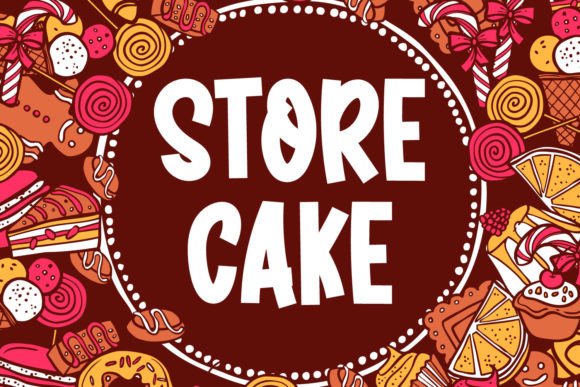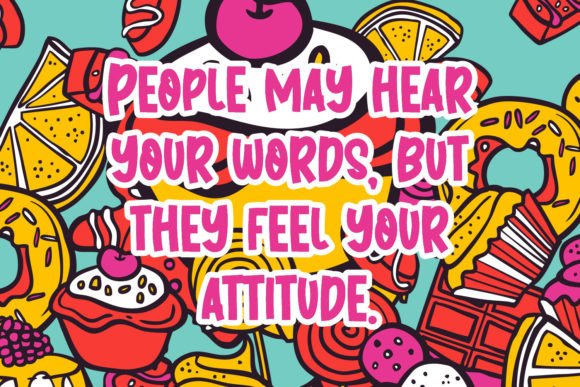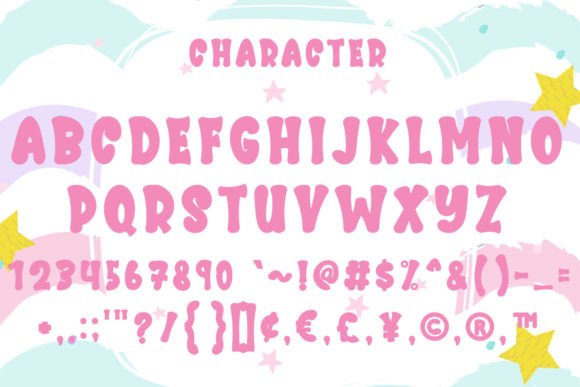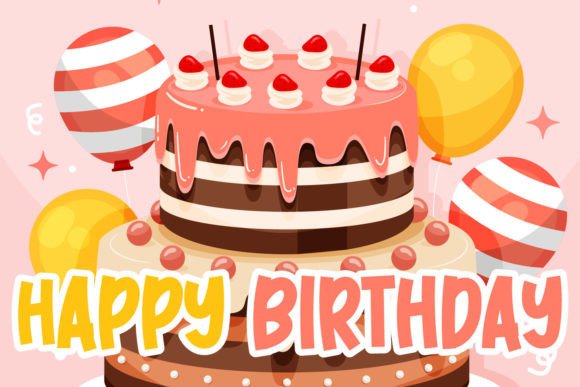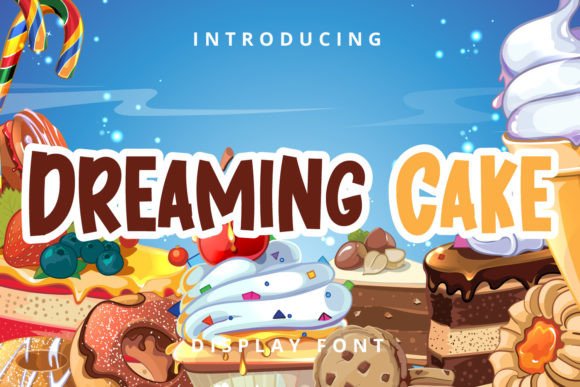
Dreaming Cake Font: The Sweetest Addition to Your Design Collection
Are you a designer or crafter looking for a font that can add a touch of whimsy and fun to your creative projects? Look no further than the Dreaming Cake font! This display font is a perfect blend of cute, bright, and fun, making it an ideal choice for children-themed designs. In this article, we’ll dive into the world of Dreaming Cake font, exploring its features, benefits, and uses, as well as provide tips on how to make the most of this beautiful display font.
What is Dreaming Cake Font?
Dreaming Cake font is a display font designed to bring a sense of joy and playfulness to your designs. Its cute and rounded letters are perfect for creating eye-catching headlines, titles, and captions that are sure to grab attention. The font’s bright and fun aesthetic makes it an excellent choice for designs aimed at children, but its versatility also allows it to be used in a variety of other creative projects.
Features of Dreaming Cake Font
So, what makes Dreaming Cake font so special? Here are some of its key features:
- Cute and playful design: Dreaming Cake font boasts a unique and adorable design that is sure to bring a smile to anyone’s face.
- Bright and fun aesthetic: The font’s bright and pastel colors are perfect for creating designs that are both visually appealing and engaging.
- Perfect for children-themed designs: Dreaming Cake font is specifically designed with children in mind, making it an excellent choice for designs aimed at kids.
- Versatile: While designed with children in mind, Dreaming Cake font can be used in a variety of creative projects, from party invitations to social media graphics.
Benefits of Using Dreaming Cake Font
So, why should you choose Dreaming Cake font for your design projects? Here are some benefits of using this beautiful display font:
- Adds a touch of whimsy: Dreaming Cake font brings a sense of fun and playfulness to your designs, making them more engaging and visually appealing.
- Perfect for branding: The font’s unique design makes it an excellent choice for branding projects, helping you to establish a strong and recognizable identity.
- Easy to read: Despite its playful design, Dreaming Cake font is easy to read, making it perfect for use in headlines, titles, and captions.
Tips for Using Dreaming Cake Font
Now that we’ve explored the features and benefits of Dreaming Cake font, here are some tips on how to make the most of this beautiful display font:
- Combine with bright and pastel colors: Dreaming Cake font is perfect for use with bright and pastel colors, which complement its fun and playful aesthetic.
- Use in children-themed designs: As mentioned earlier, Dreaming Cake font is specifically designed with children in mind, making it perfect for use in kids’ party invitations, flyers, and other designs.
- Experiment with different sizes and styles: Don’t be afraid to experiment with different sizes and styles of Dreaming Cake font to add visual interest to your designs.
- Pair with other fun fonts: Dreaming Cake font pairs well with other fun and playful fonts, making it easy to create unique and visually appealing designs.
In conclusion, Dreaming Cake font is a beautiful display font that is sure to add a touch of whimsy and fun to your design projects. Its cute and playful design, bright and fun aesthetic, and versatility make it an excellent choice for children-themed designs, branding projects, and more. By following the tips outlined in this article, you can make the most of Dreaming Cake font and create designs that are both visually appealing and engaging.